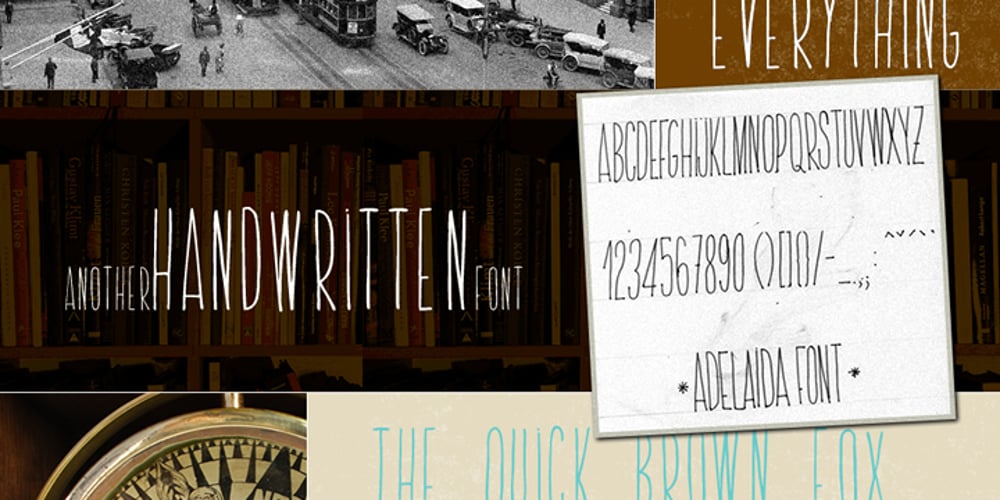
Adelaida
Adelaida font
Adelaida Font Family was designed by Giuseppe Salerno, Paco González and published by Resistenza. Adelaida contains 3 styles and family package options. Thin like a pencil, Adelaida is versatile legible.We recommend it for postcards, ads, gift cards…